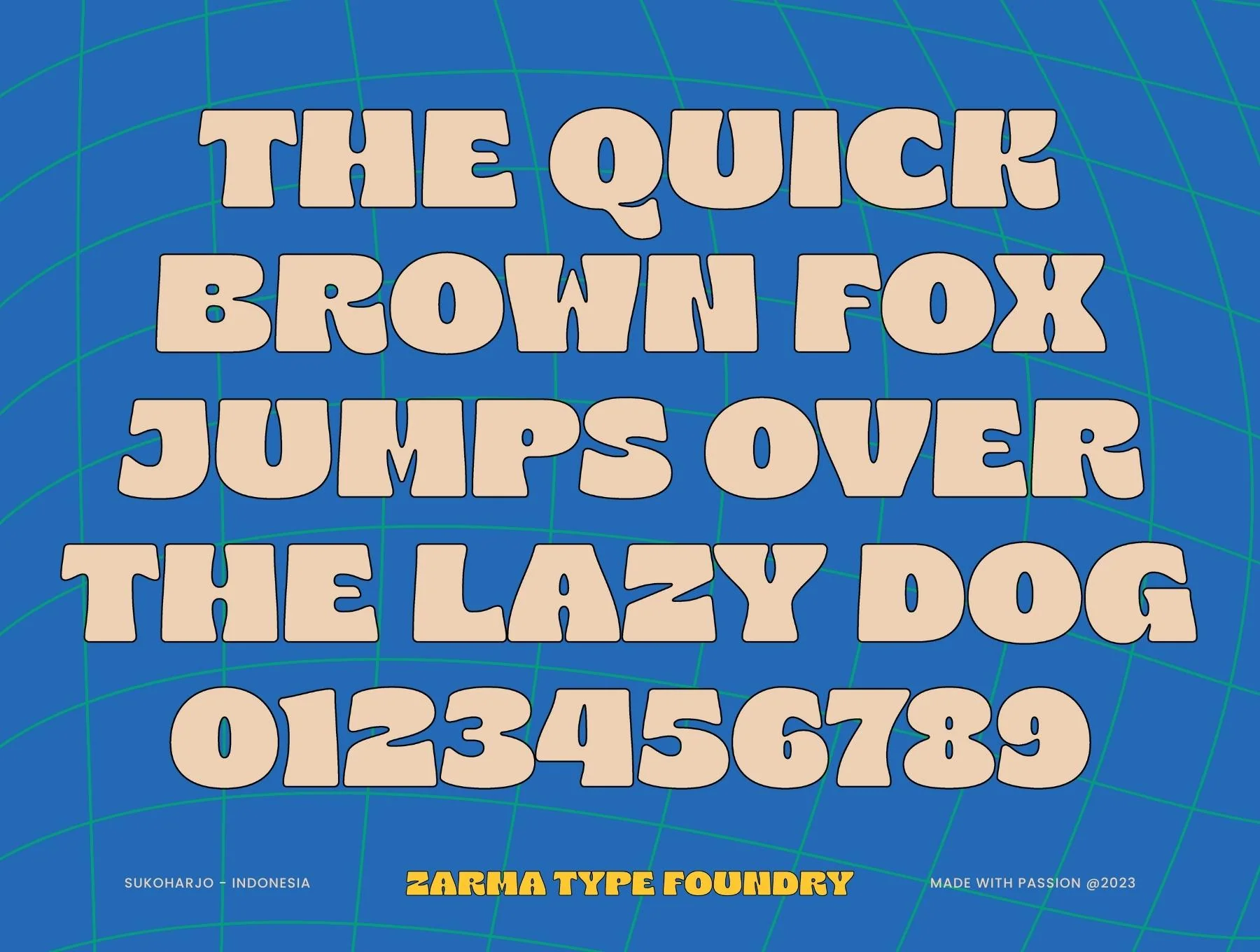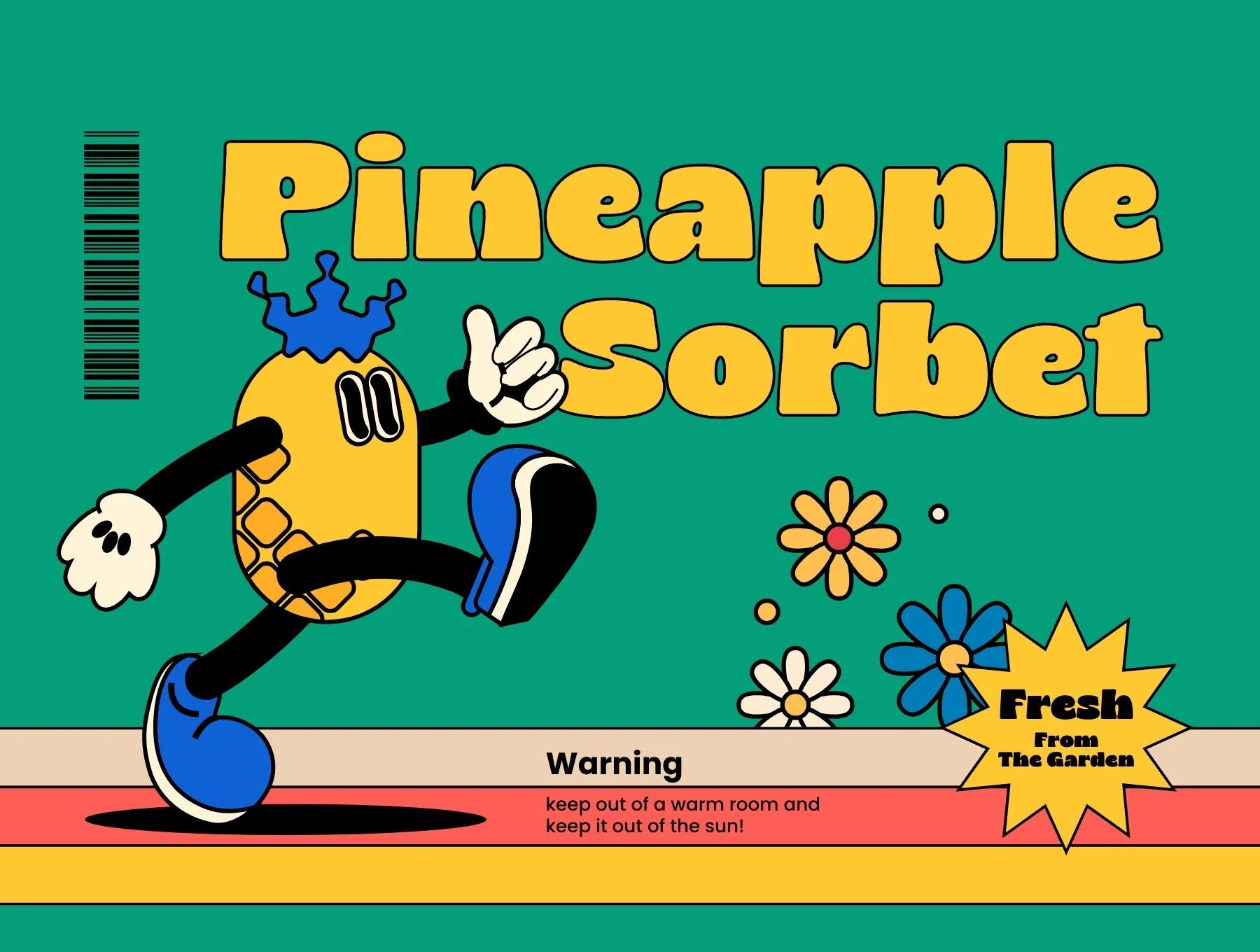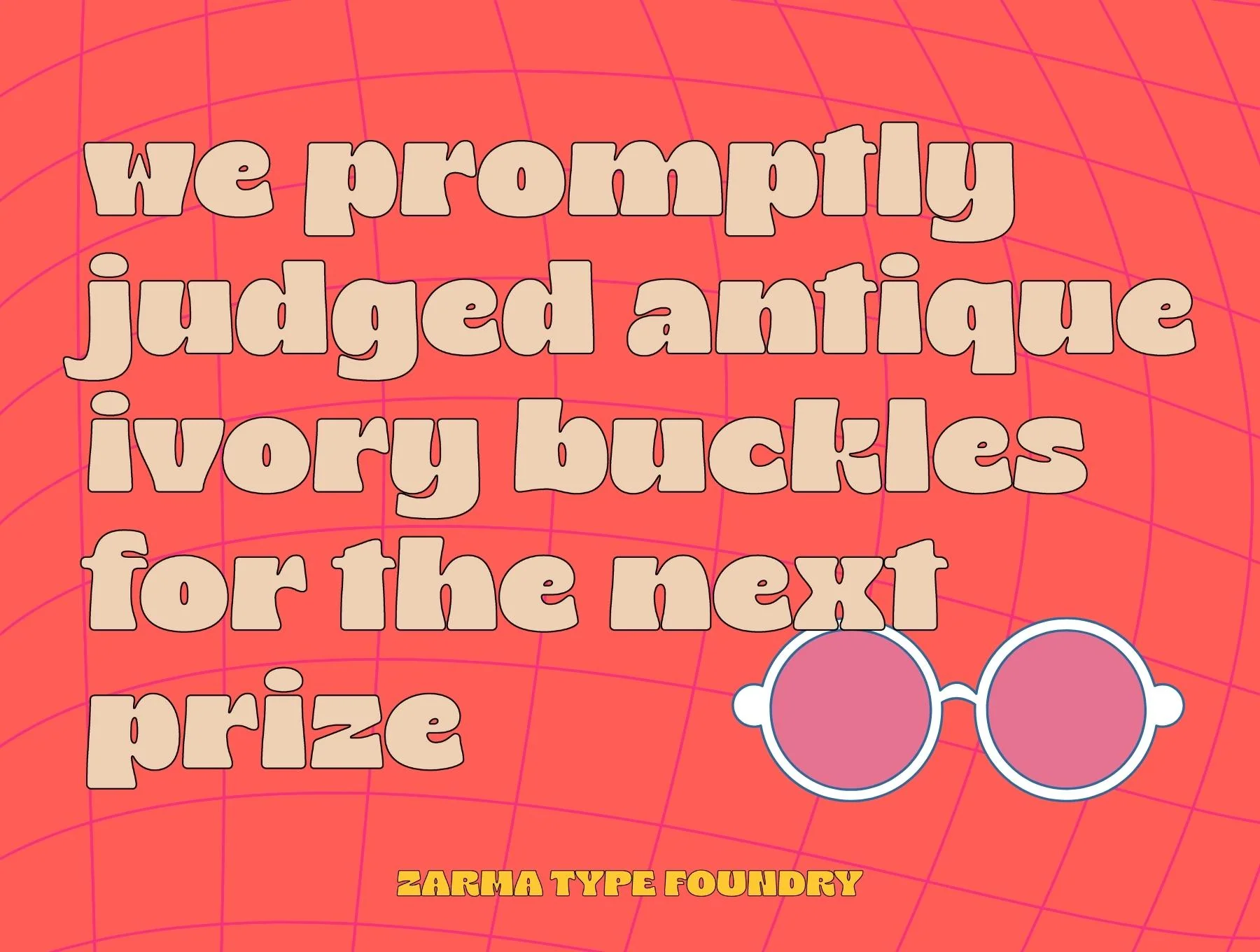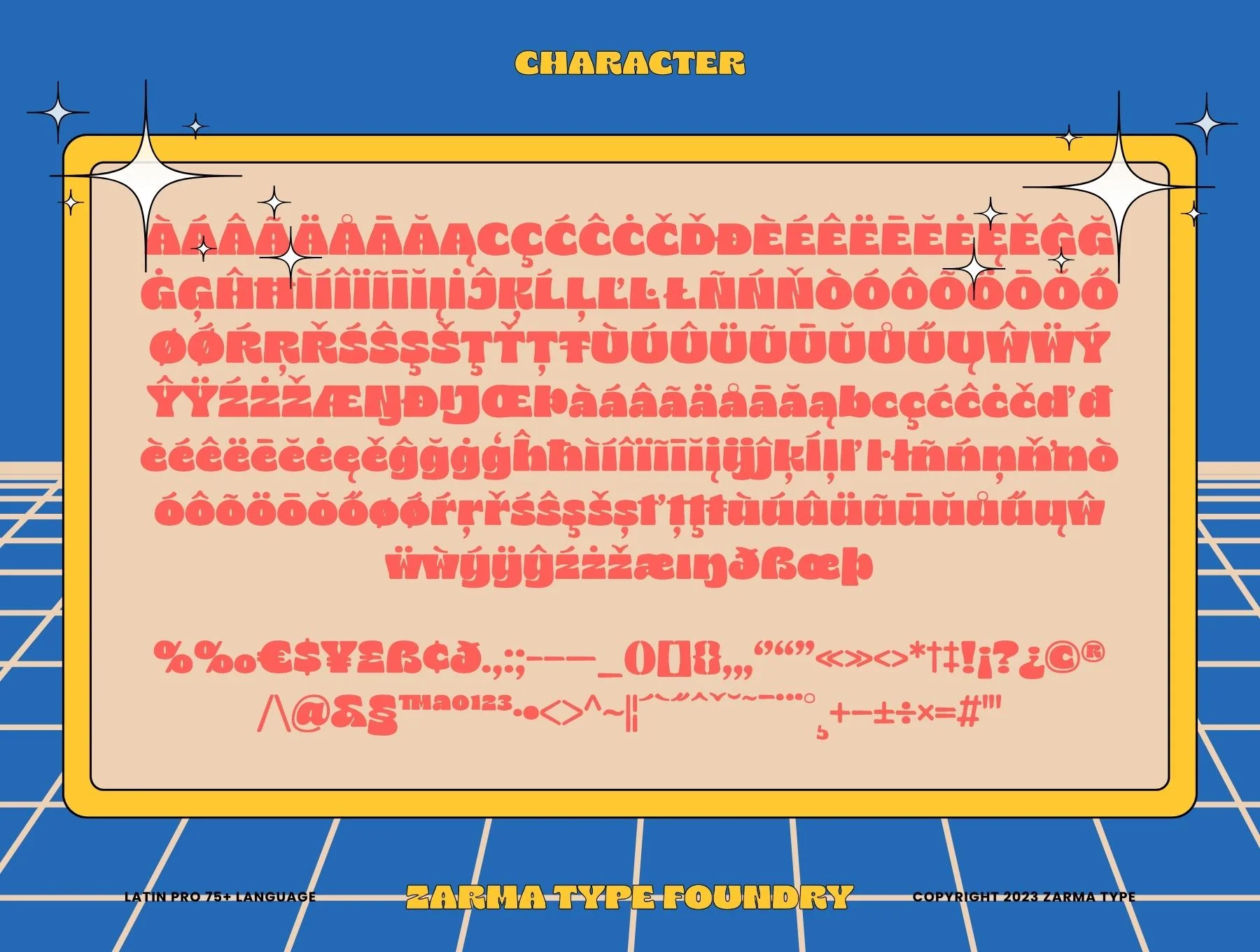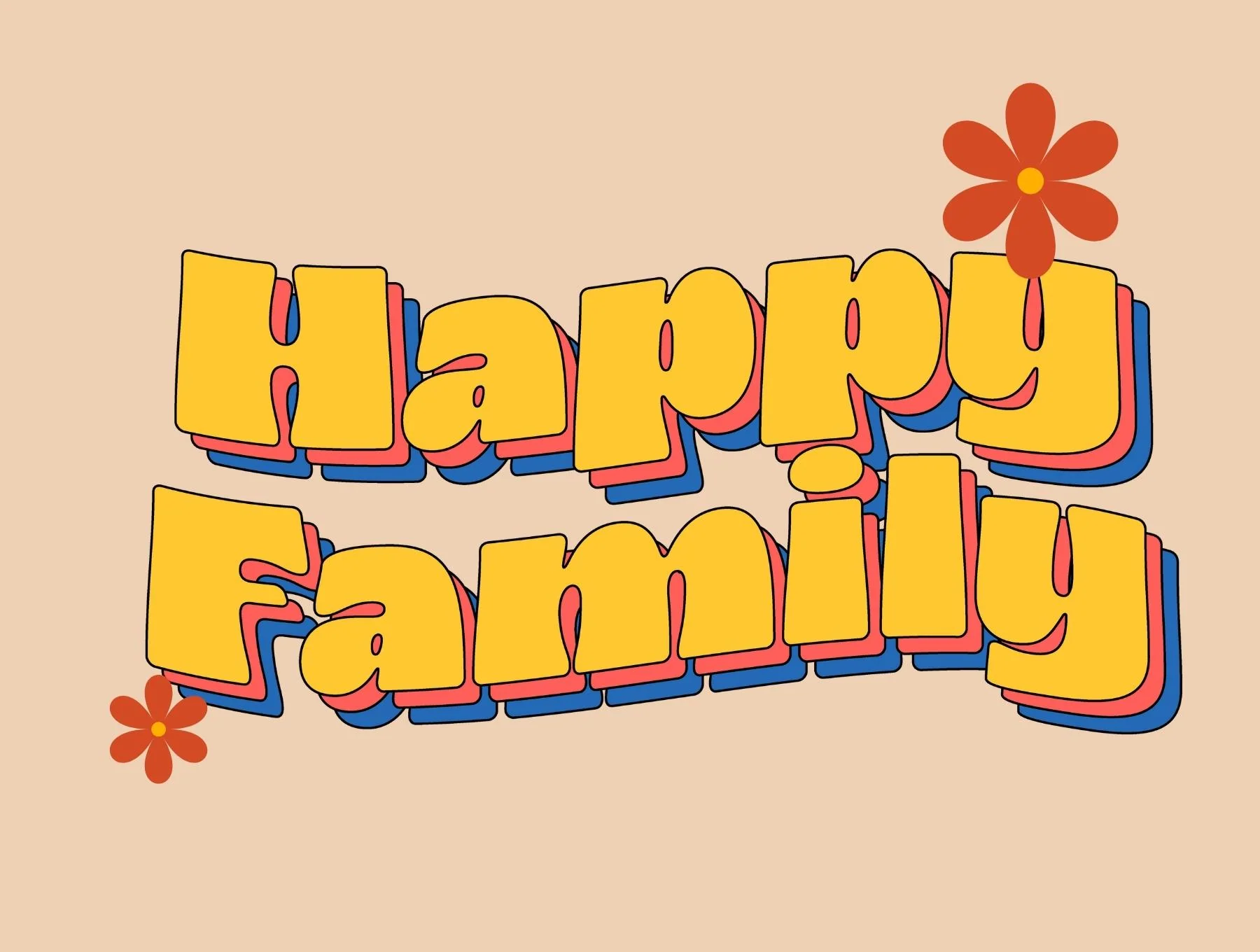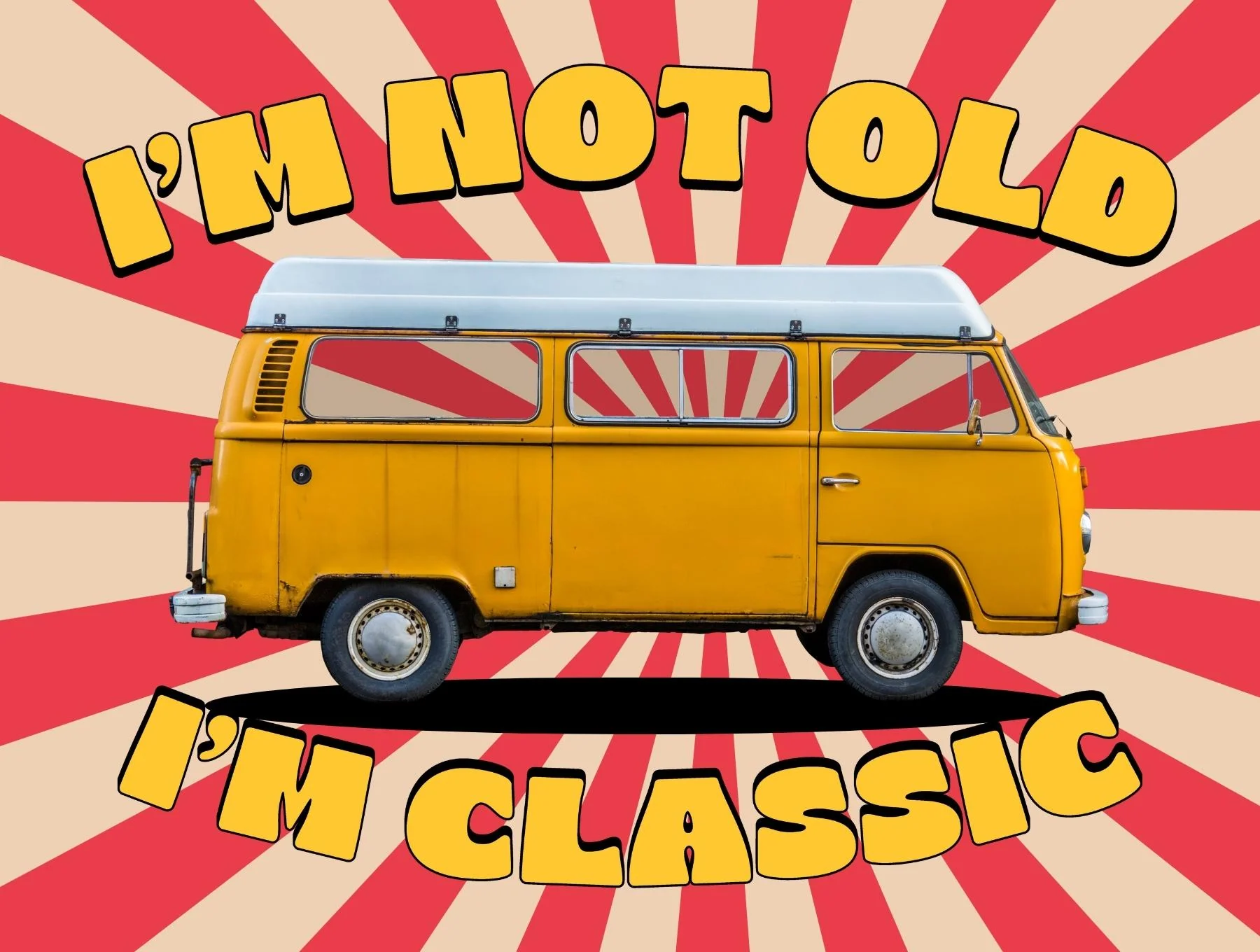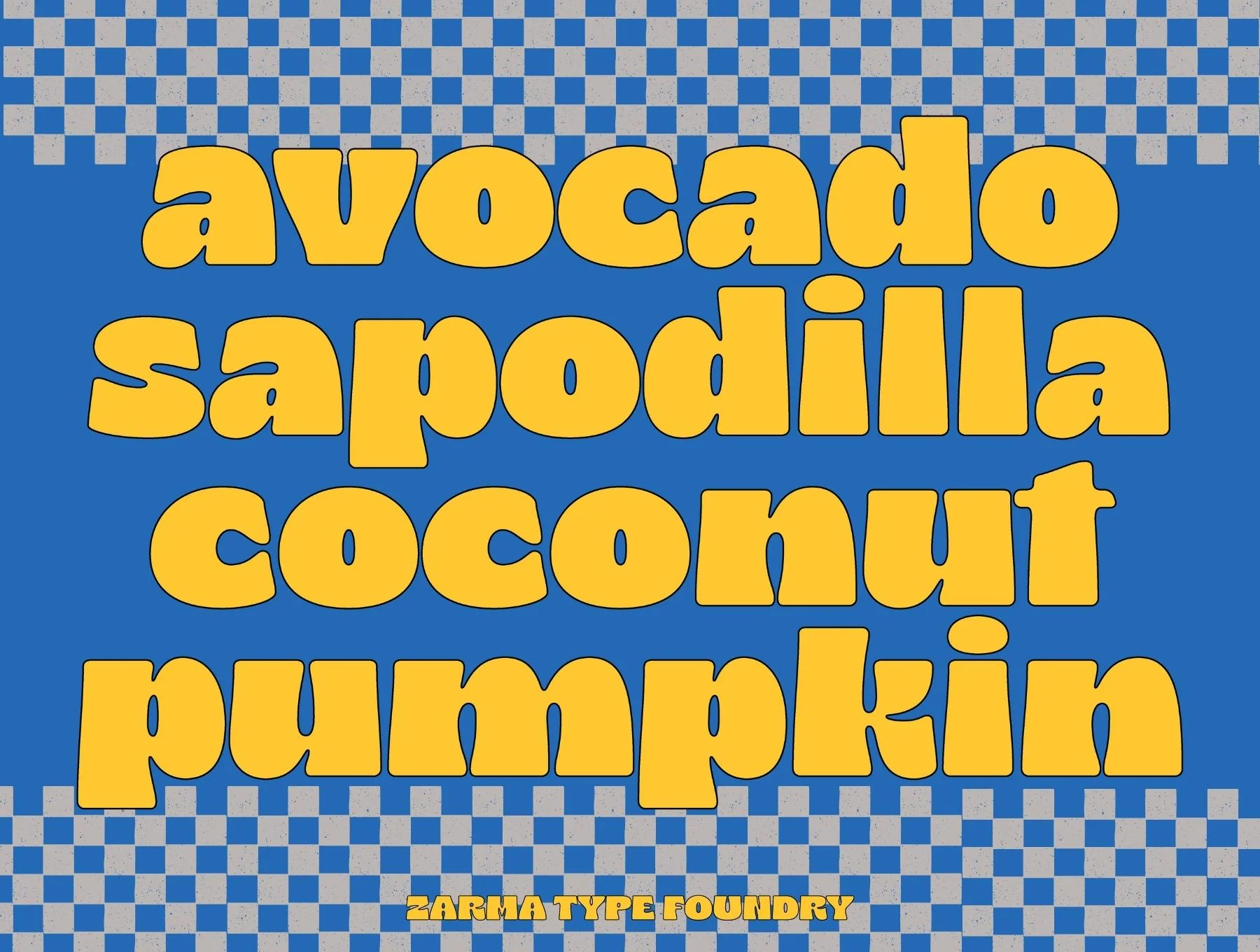
Bilgres Font
Striking Boho Font
Capital letters, small letters, numbers and punctuation
Supports multiple languages
Includes ligature characters
Bilgres captures the lively 1960s mood in a wide, bold typeface with rounded forms and retro Bell Bottom styling. Ideal for posters, social posts, logos, and packaging, it adds groovy vintage energy with a modern edge. Includes Bilgres, Latin Pro multilingual support, and alternates via Glyphs in Adobe Photoshop or Illustrator.